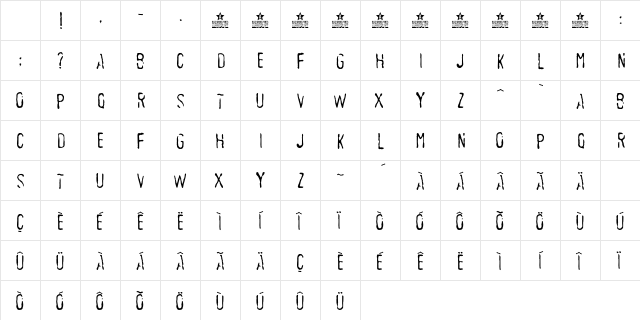
Complete SEDEX PERSONAL USE Regular glyph index. Displaying only characters natively supported by SEDEX PERSONAL USE Regular font.
SEDEX PERSONAL USE is a composed and adaptable typeface that performs quietly and consistently across a wide range of design contexts.